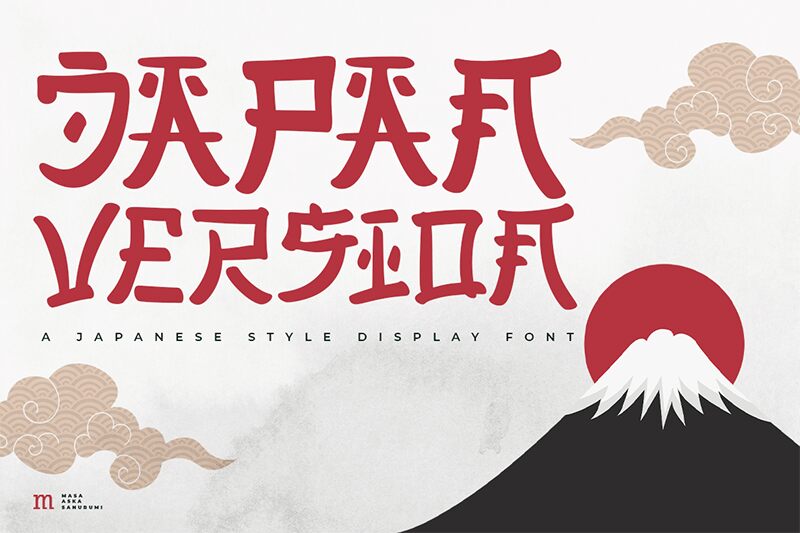
Japan Version is a captivating script font crafted by the renowned designer Masa Aska Sanurumi of Masa Fonts. This elegant and dynamic typeface seamlessly blends traditional Japanese calligraphic influences with a modern, refined aesthetic. The flowing, organic strokes and intricate details create a sense of movement and fluidity, evoking the grace and beauty of the Japanese language.
The Japan Version font's versatility shines through its ability to seamlessly transition from elegant headers and titles to expressive body text. Its calligraphic flair makes it a compelling choice for branding, packaging, editorial design, and various other creative applications that demand a touch of sophistication and cultural nuance.